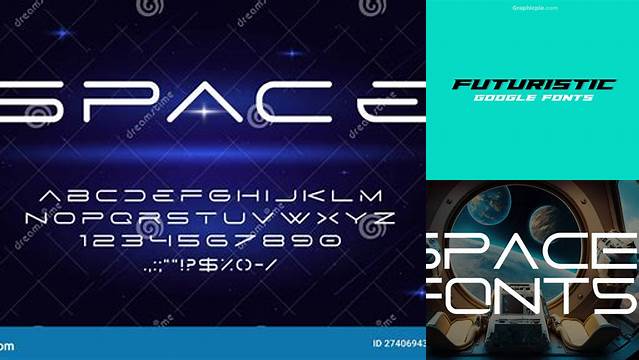
Space Fonts In Google Docs: Blast Off Your Text!
Are you looking to give your Google Docs a futuristic, space-age vibe? Maybe you're crafting a sci-fi story, designing a presentation about the cosmos, or just want to add a unique touch to your documents. Whatever your reason, choosing the right font can make all the difference. In this guide, we'll explore the best space-like fonts available on Google Docs and how to use them to create visually stunning documents. We will also delve into the nuances of typography and how different fonts can evoke different feelings and associations related to space and the future. From sleek and minimalist designs that suggest advanced technology to more whimsical and retro-futuristic styles, there's a galaxy of options waiting to be discovered. We'll provide practical tips on how to access and apply these fonts within Google Docs, ensuring that you can easily transform your documents into captivating visual experiences. So, buckle up, and let's embark on a journey through the world of space-like fonts, where we'll uncover the secrets to making your text soar among the stars.
Understanding Space-Like Fonts
When we talk about space-like fonts, we're generally referring to typefaces that evoke a sense of the futuristic, technological, and cosmic. These fonts often feature clean lines, geometric shapes, and a minimalist aesthetic. Think of the fonts you might see in the opening credits of a science fiction movie or on the interface of a spaceship console. But what exactly makes a font feel space-like? There are several key characteristics that contribute to this perception. First, many space-like fonts employ a monospaced design, where each character occupies the same horizontal width. This creates a sense of uniformity and precision, reminiscent of digital displays and computer code. Second, geometric shapes play a significant role, with fonts often incorporating circles, squares, and triangles to convey a sense of technological sophistication. The use of bold, sans-serif styles is also common, as these fonts tend to appear cleaner and more modern than their serif counterparts. Furthermore, the letterforms themselves may be stylized to resemble elements from science fiction, such as angled terminals, sharp edges, and a generally streamlined appearance. By understanding these elements, you can better appreciate the nuances of space-like typography and choose fonts that perfectly align with your vision.
Key Characteristics of Futuristic Fonts
To truly capture that futuristic feel, several key characteristics define these fonts. First off, geometric shapes often dominate the design. Think sharp angles, perfect circles, and clean lines that scream "high-tech." These shapes give the font a sense of precision and modernity, perfect for conveying a futuristic vibe. Secondly, many space-like fonts are sans-serif, meaning they lack the small decorative strokes (serifs) found on fonts like Times New Roman. Sans-serif fonts tend to look cleaner and more contemporary, aligning well with a futuristic aesthetic. Another common trait is monospaced design, where each letter takes up the same amount of horizontal space. This creates a uniform, almost digital appearance, reminiscent of computer code or the displays on a spaceship console. Beyond these core elements, stylistic choices like bold weights, angled terminals (the ends of the strokes), and stylized letterforms can further enhance the futuristic feel. For example, some fonts might incorporate broken or incomplete lines to suggest advanced technology or digital glitches. Others may feature elongated or compressed letterforms to create a unique visual impact. By understanding these characteristics, you can start to identify fonts that resonate with your vision of the future and effectively use them in your projects.
Top Space-Like Fonts on Google Docs
Okay, let's get to the good stuff! Google Docs offers a variety of fonts that can give your documents that space-age edge. Here are some of the top contenders, along with how you can use them effectively. We'll explore a range of options, from sleek and minimalist designs to more playful and retro-futuristic styles, ensuring there's something for every project. For each font, we'll discuss its unique characteristics and how it can be used to create different effects. Whether you're writing a science fiction novel, designing a presentation on space exploration, or simply adding a touch of the future to your everyday documents, the right font can make all the difference. We'll also provide tips on how to pair these fonts with others to achieve a balanced and visually appealing design. Remember, the goal is not just to choose a font that looks futuristic but also one that is legible and appropriate for your content. So, let's dive in and discover the fonts that will transport your readers to another galaxy.
Exploring the Font Galaxy
Google Docs may not have an infinite number of fonts, but it has enough to let your creativity blast off. To get started, open a Google Doc and click on the font dropdown menu. Select “More fonts” to open the fonts window. Here, you can search for specific fonts or browse by category. Let's start by exploring some of the standout contenders in the realm of space-like typography. A classic choice is Orbitron, a geometric sans-serif font that evokes a sense of technological precision and modernity. Its clean lines and sharp angles make it ideal for titles, headings, and short bursts of text. Another popular option is Rajdhani, a bold and condensed sans-serif font that exudes confidence and strength. Its strong letterforms are perfect for creating a sense of urgency or importance. For a more minimalist and futuristic look, consider Exo 2, a versatile sans-serif font with a sleek and streamlined design. Its subtle curves and balanced proportions make it a great choice for body text as well as headings. If you're aiming for a retro-futuristic vibe, Audiowide is worth exploring. This font features rounded corners and a slightly condensed design, reminiscent of vintage computer displays and arcade games. It's a fun and playful option that can add a unique touch to your projects. As you experiment with these fonts, remember to consider the overall tone and style of your document. The right font can not only enhance the visual appeal of your work but also effectively communicate your message.
Featured Fonts for a Futuristic Feel
- Orbitron: A geometric sans-serif font that screams “space age.” Its futuristic vibes make it perfect for titles and headings. It's like the font equivalent of a spaceship dashboard, all sleek lines and sharp angles. Orbitron is a solid choice if you want to convey a sense of high-tech precision. Imagine it emblazoned across the title of your sci-fi novel or gracing the slides of your presentation on the future of space travel. Its clean design ensures readability while still maintaining a strong visual impact.
- Rajdhani: This bold, condensed sans-serif is all about strength and confidence. Use it when you want to make a statement. Rajdhani is the font you'd choose for a mission briefing or a warning sign on a spaceship. Its strong letterforms command attention and convey a sense of urgency. This font is particularly effective for headlines and subheadings, as it can quickly grab the reader's eye. While it's not the most subtle option, Rajdhani is perfect for projects that require a powerful and assertive tone.
- Exo 2: A versatile sans-serif with a sleek, minimalist design. It's great for both body text and headings. Exo 2 is the font of choice for the understated future, where technology seamlessly integrates into everyday life. Its subtle curves and balanced proportions make it highly legible, even at smaller sizes. This font is ideal for longer passages of text, as it won't tire the reader's eyes. But it also works well for headings, providing a clean and modern aesthetic. If you're aiming for a futuristic look without sacrificing readability, Exo 2 is an excellent option.
- Audiowide: For a retro-futuristic touch, this font has rounded corners and a slightly condensed design. Think 1980s arcade games in space! Audiowide is the font that would appear on the screen of a vintage computer in a sci-fi movie. Its rounded corners give it a playful and approachable feel, while its condensed design adds a touch of retro charm. This font is perfect for projects that aim for a nostalgic take on the future. It can add a unique and memorable element to your designs, particularly when used sparingly for headlines or logos.
How to Add and Use Fonts in Google Docs
Adding these stellar fonts to your Google Docs arsenal is easier than navigating an asteroid field. Here’s a quick guide to get you started. This section will walk you through the process step-by-step, ensuring that you can easily access and apply these space-like fonts to your documents. We'll also cover some best practices for using fonts effectively, such as choosing appropriate font sizes, line spacing, and letter spacing to enhance readability. Additionally, we'll discuss how to pair different fonts to create visually appealing and balanced designs. Whether you're a seasoned graphic designer or a beginner just starting to explore typography, this guide will provide you with the knowledge and skills to make the most of Google Docs' font options. So, let's get started and transform your documents into captivating visual experiences.
Conclusion: Launching Your Space-Themed Documents
So, there you have it, guys! With the right space-like fonts and a little design know-how, you can create documents that are truly out of this world. Remember, it's all about choosing fonts that evoke the futuristic, technological, and cosmic, and then complementing them with other design elements to create a cohesive and visually stunning result. Now, go forth and let your creativity soar among the stars! This guide has equipped you with the knowledge and tools to transform your Google Docs into captivating visual experiences. By understanding the characteristics of space-like fonts, exploring the font options available in Google Docs, and applying effective design principles, you can create documents that not only look great but also effectively communicate your message. Remember to experiment with different font combinations, color palettes, and imagery to find the perfect balance for your project. And don't be afraid to push the boundaries of design and create something truly unique. The possibilities are endless, so let your imagination run wild and launch your space-themed documents into the world.